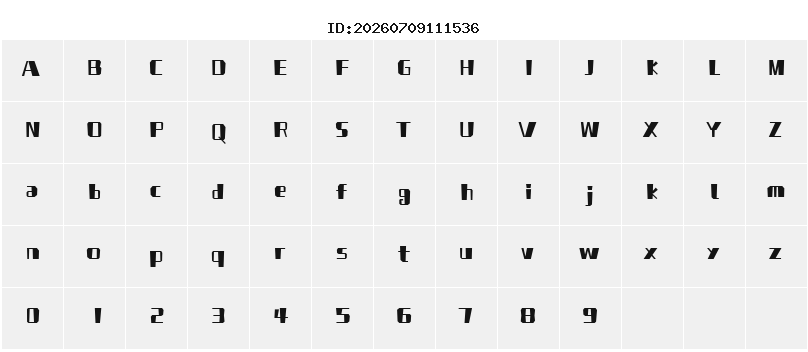
庞门正道轻松体 Preview
• Font Name: 庞门正道轻松体
• Font Style: <字体子系未定义>
• Font ID: Pangmenzhengdaoqingsongti:Version 1.00
• Full Font Name: 庞门正道轻松体
• Version: Version 1.00 November 29, 2019, initial release
• PostScript Name: Pangmenzhengdaoqingsongti
• Character Count: 7369
• Designer: 庞门正道
• Manufacturer: 庞门正道
About 庞门正道轻松体.otf
庞门正道轻松体.otf is a modern, elegant sans-serif font designed for ultimate readability and visual harmony. Perfect for branding, headlines, web design, and print materials.